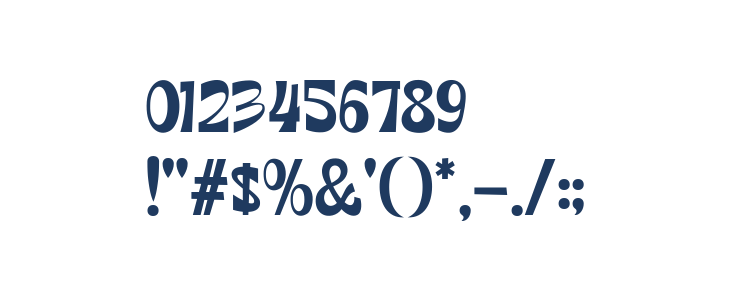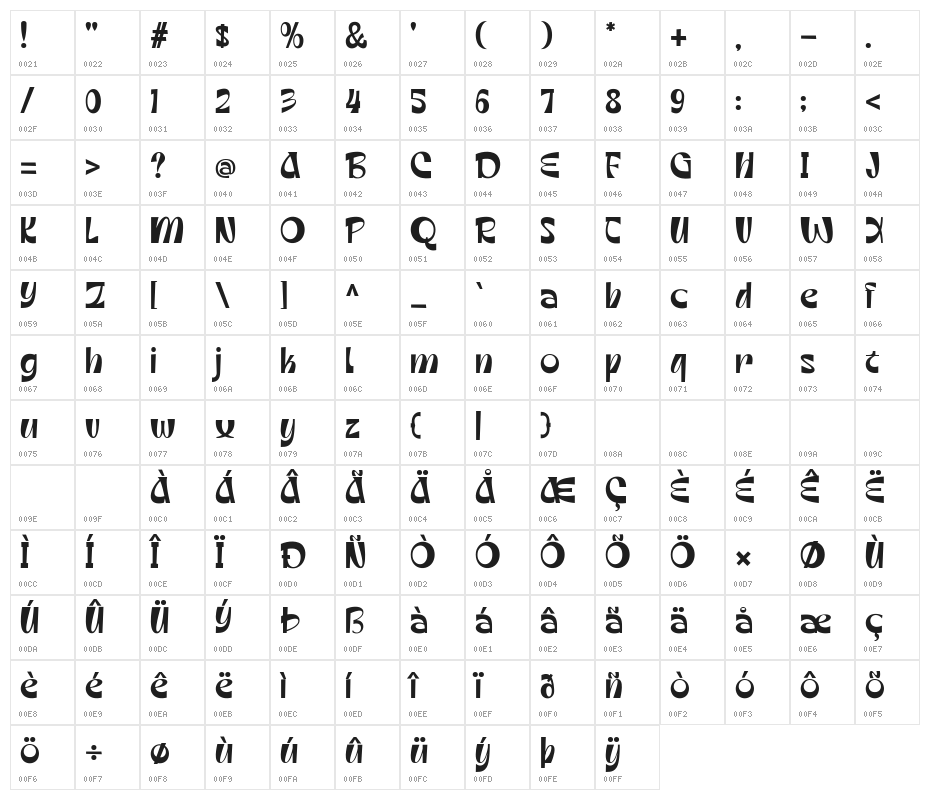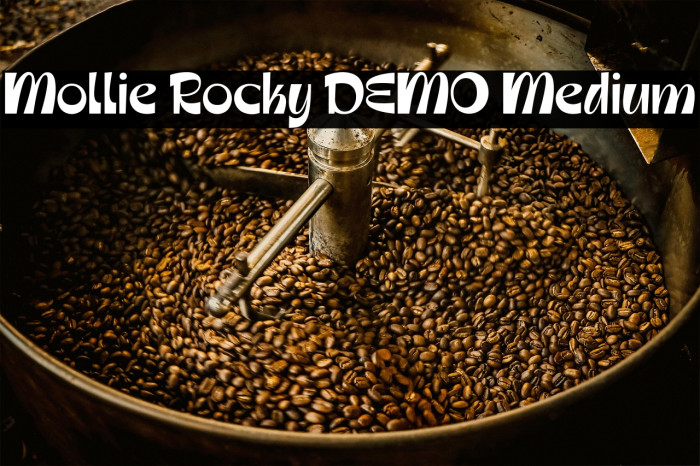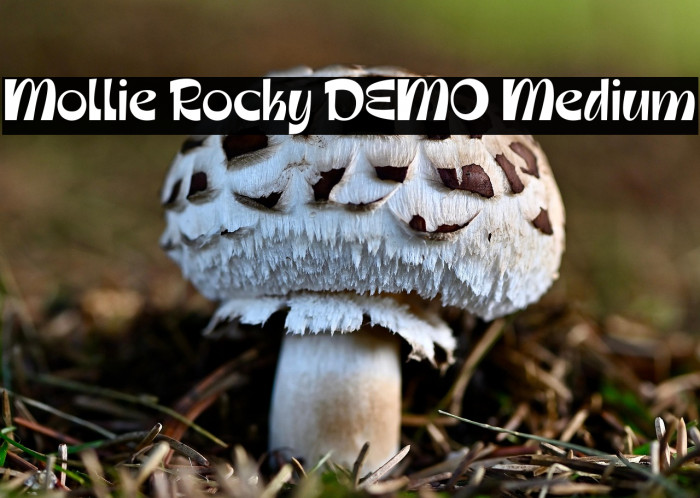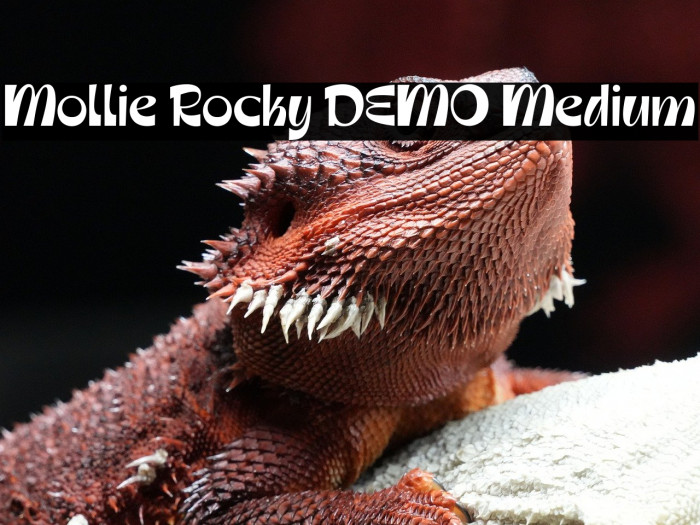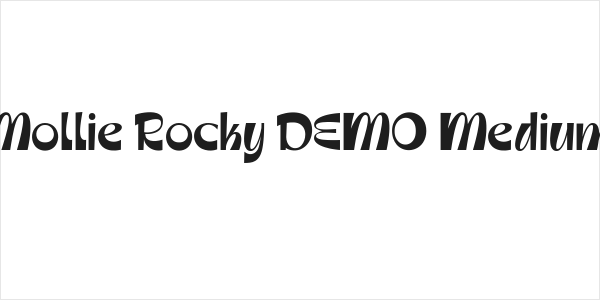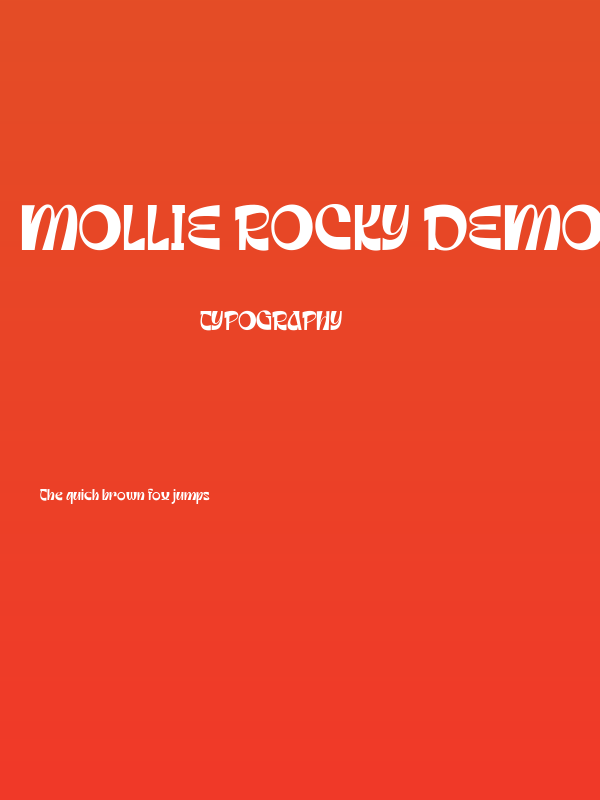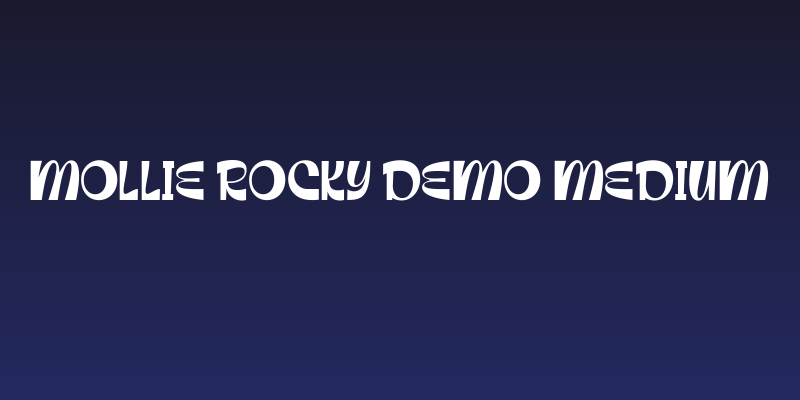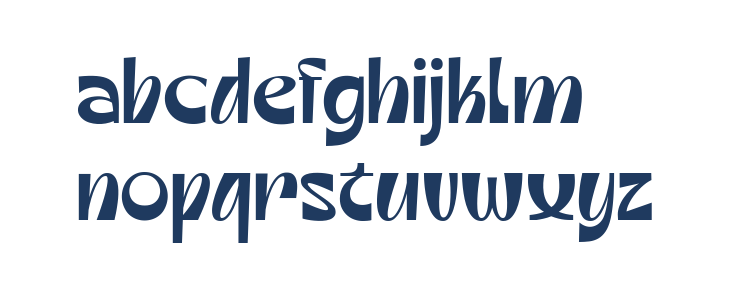
Mollie Rocky DEMO Medium Font
Mollie Rocky DEMO Medium Description
This font features a bold and dynamic style with a playful and artistic flair. The characters have a unique, curvy design that combines both sharp and rounded elements, creating a sense of movement and energy. The uppercase letters are particularly striking, with exaggerated curves and varying stroke widths that add a dramatic effect. The lowercase letters maintain a consistent style, offering a harmonious blend with the uppercase set. Numbers and special characters follow the same design principles, ensuring a cohesive look across all elements. This font is ideal for projects that require a bold statement and a touch of creativity.
Overall StyleModern, Decorative
Proposed ProjectsIdeal for posters, branding, headlines, and creative design projects.